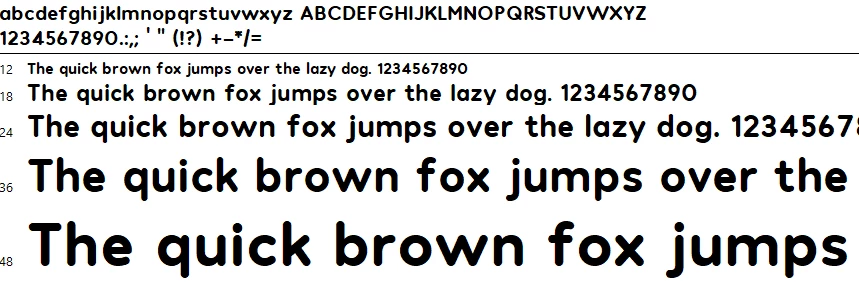
Hank Rounded Family- Download Free
Hank rounded is a semi-condensed sans serif with geometric shapes that is available in four weights right now. Hank Rounded Family Font is a Personal Use font. Starting with uppercase, lowercase, Numeric, and certain Special character and alternatives, fonts are available. Reghardt created and published the font. Windows, Apple/Mac, Linux, Cricut, Silhouette, and other cutting machines are all compatible with the font. Converting the gorgeous typography to a web font is simple.
Hank Rounded Family Font is great for logos, branding, invitations, stationery, wedding designs, logos, business cards, covers, t-shirts, social media posts, and more. It will also be utilized to generate a stunning image and text in a variety of colors and styles. The font has a powerful texture, making it ideal for use in wallpaper. You can also use it as a banner for a coffee business.
Hank Rounded Family View
Hank Rounded- Family- Character map
Hank Rounded Family View